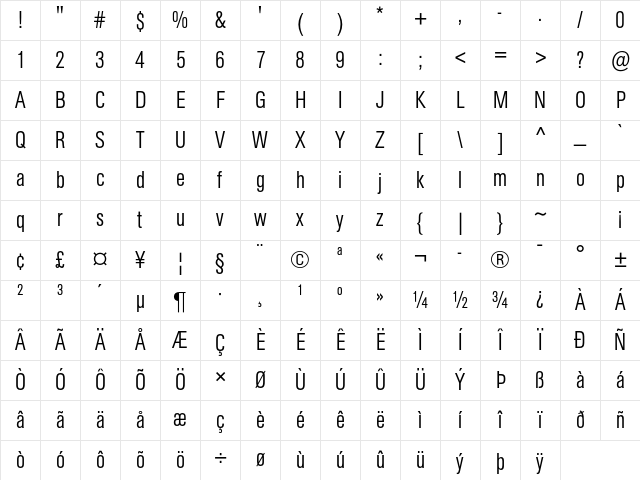
AG Book Lt Cd Regular
AG Book Lt Cd Family
Design Context for AG Book Lt Cd
AG Book Lt Cd is a composed and adaptable typeface that performs quietly and consistently across a wide range of design contexts. Its slender proportions lend an understated elegance to any composition.